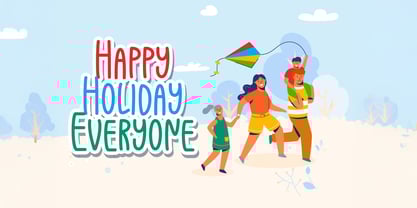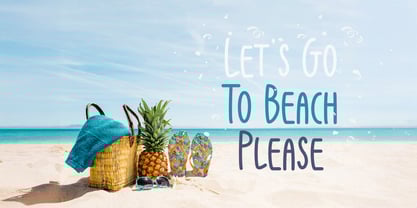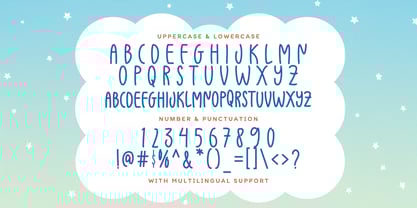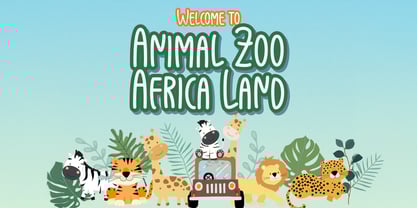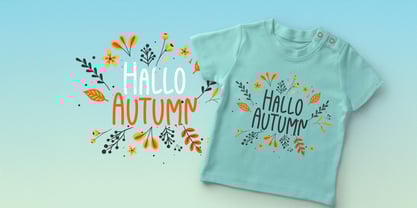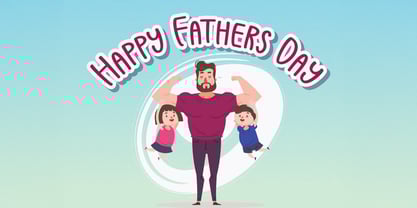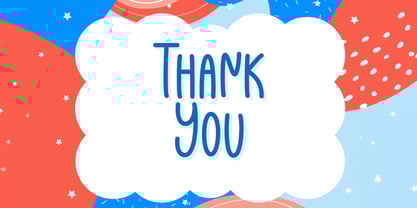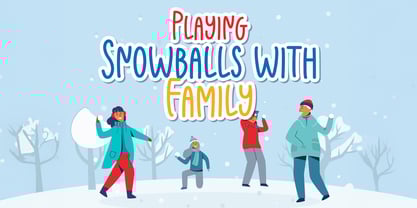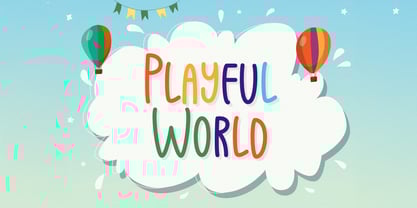
Playful World
by Stringlabs Creative Studio
The Playful World Font Family was designed by Virgiawan Listanto and published by Stringlabs Creative Studio. Playful World contains 1 styles. More about this family
Playful World is a lively and fun display font designed to bring a sense of whimsy and excitement to any design. With its bouncy letterforms, rounded edges, and energetic personality, this font is perfect for projects that need a cheerful, youthful vibe. Whether for children’s books, event posters, or playful branding, Playful World adds a dynamic, joyful touch that instantly grabs attention.
Designers: Virgiawan Listanto
Foundry: Stringlabs Creative Studio